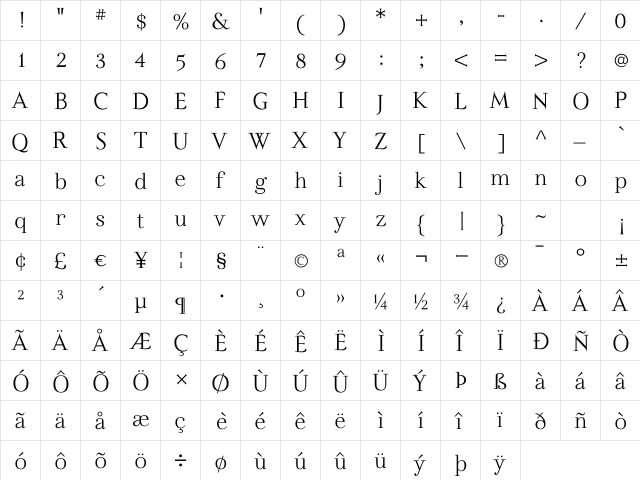
Felina SerifLight Regular
Design Context for Felina SerifLight Typeface
Felina SerifLight carries the refined structure of traditional serif typography, with bracketed terminals and considered proportions that communicate credibility and craft. Its slender proportions lend an understated elegance to any composition.
Pro Tip: Set Felina SerifLight at slightly larger body copy sizes than you would a regular-weight serif to compensate for its delicate stroke contrast.